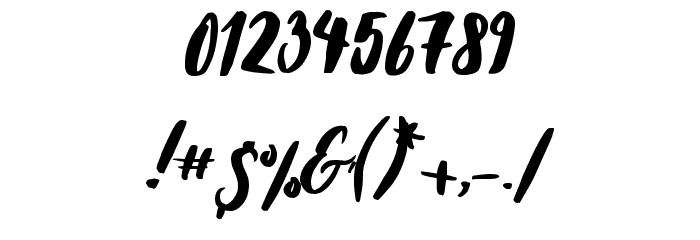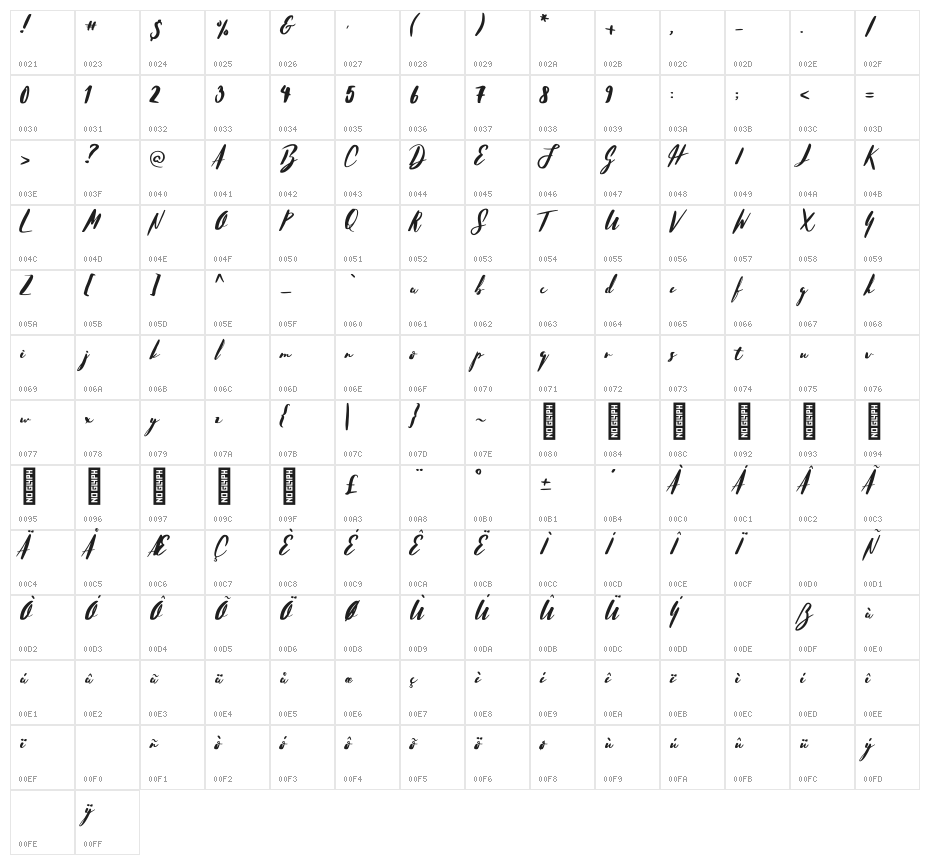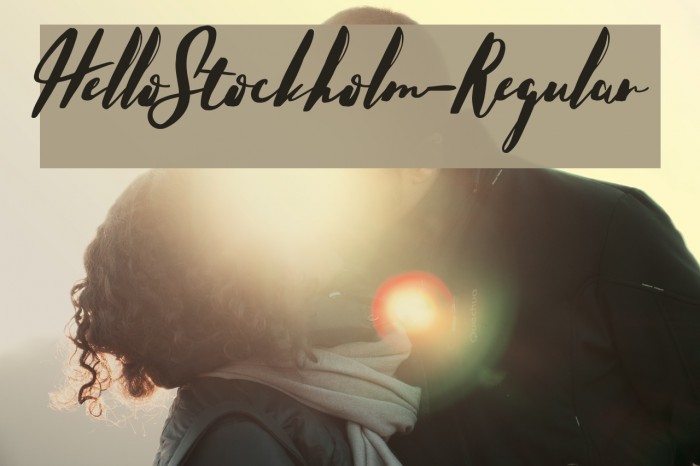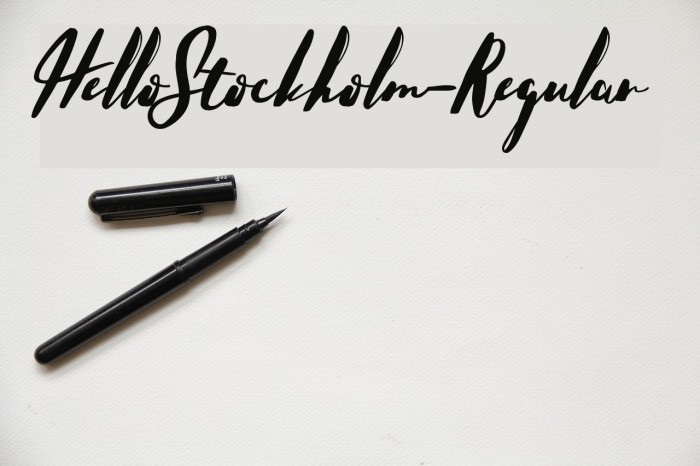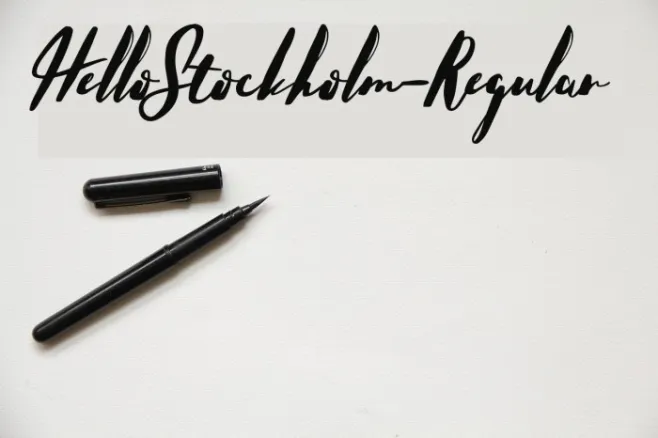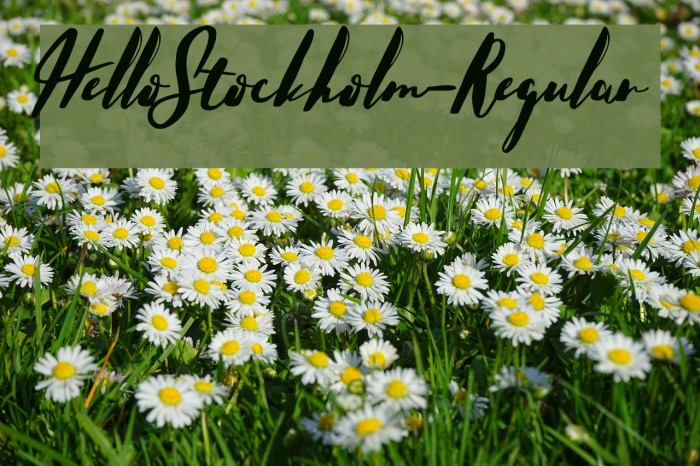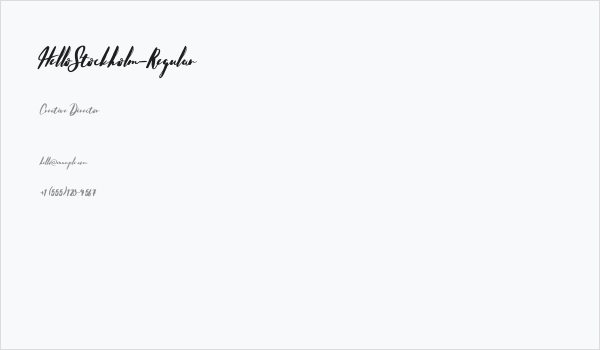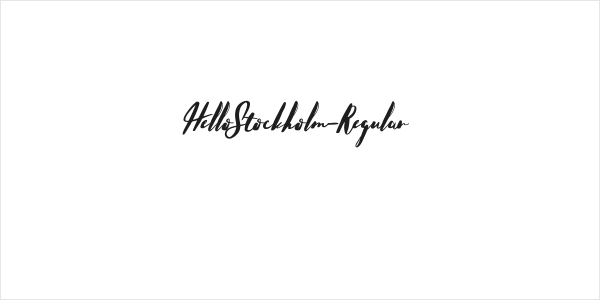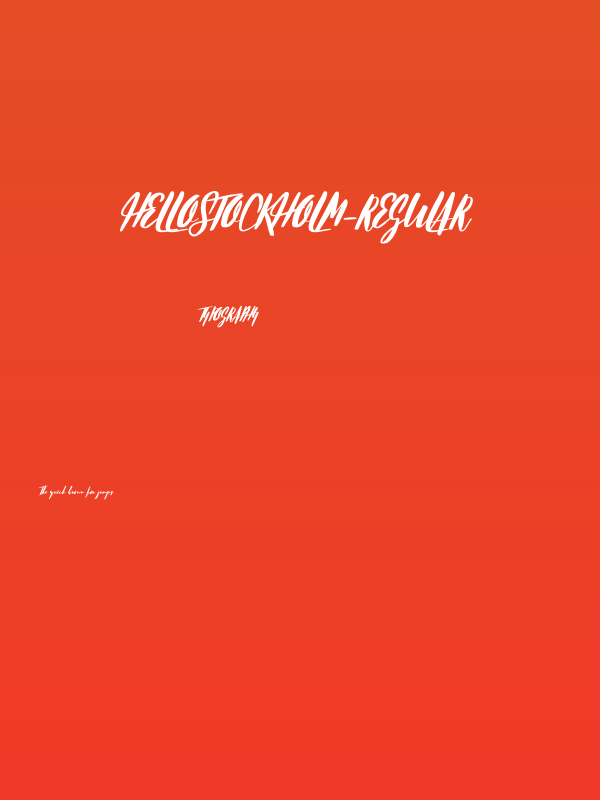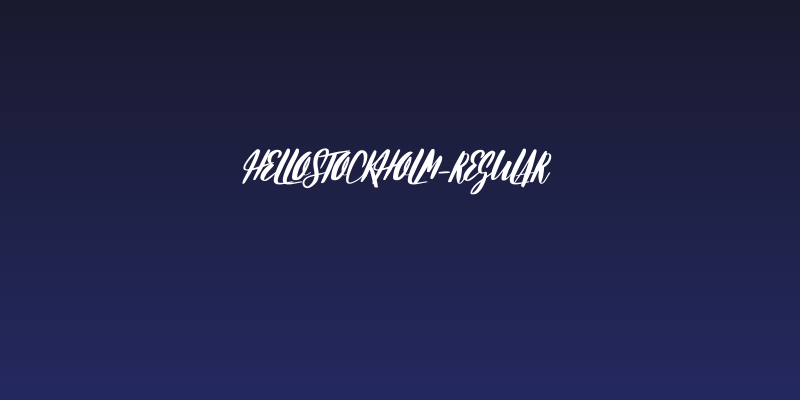
HelloStockholm-Regular Font
HelloStockholm-Regular Description
This font exudes a dynamic and energetic style, characterized by its bold, brush-like strokes that convey a sense of movement and fluidity. The uppercase letters are particularly striking, with their sweeping curves and sharp angles, while the lowercase letters maintain a consistent flow that complements the overall design. The numerals and special characters are equally expressive, maintaining the same brush script aesthetic. This font is perfect for projects that require a personal, handwritten touch, such as invitations, branding, and artistic designs. Its unique style makes it stand out, adding a creative flair to any text.
| Use Case | Logos, Headlines, Artistic designs |
| Proposed Projects | Ideal for invitations, branding, artistic designs, and any project needing a personal touch. |